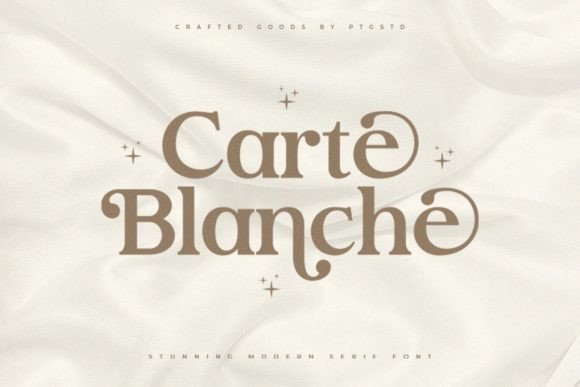
Introducing Carte Blanche Font, the perfect choice for adding a touch of elegance and sophistication to your projects. Crafted by the talented team at Pentagonistudio, this exquisite serif font brings a contemporary atmosphere and impeccable form to any design.
Carte Blanche Font is more than just a typeface. It is a masterpiece inspired by the timeless art of calligraphy. With its balanced and varied strokes, this font strikes the perfect balance between not being too thin or too thick. It was meticulously designed to enhance the beauty and professionalism of your projects.
Whether you're creating a stunning resume, captivating headlines, or eye-catching branding materials, Carte Blanche Font is the ultimate tool to make a lasting impression. Its versatility and charm make it suitable for a wide range of applications, allowing you to unleash your creativity and bring your ideas to life.
With its elegant curves and graceful letterforms, Carte Blanche Font exudes a sense of refinement that captivates the viewer. It effortlessly conveys a sense of confidence, sophistication, and professionalism, making it the ideal choice for professionals in various fields.
Imagine your resume standing out among a sea of applicants, grabbing the attention of recruiters with its impeccable headline in Carte Blanche Font. It instantly conveys your attention to detail, your dedication, and your commitment to excellence.
The beauty of Carte Blanche Font lies not only in its aesthetic appeal but also in its readability. Each letter is meticulously crafted to ensure optimum legibility, even at small sizes. This ensures that your message is conveyed effortlessly, without any distractions.